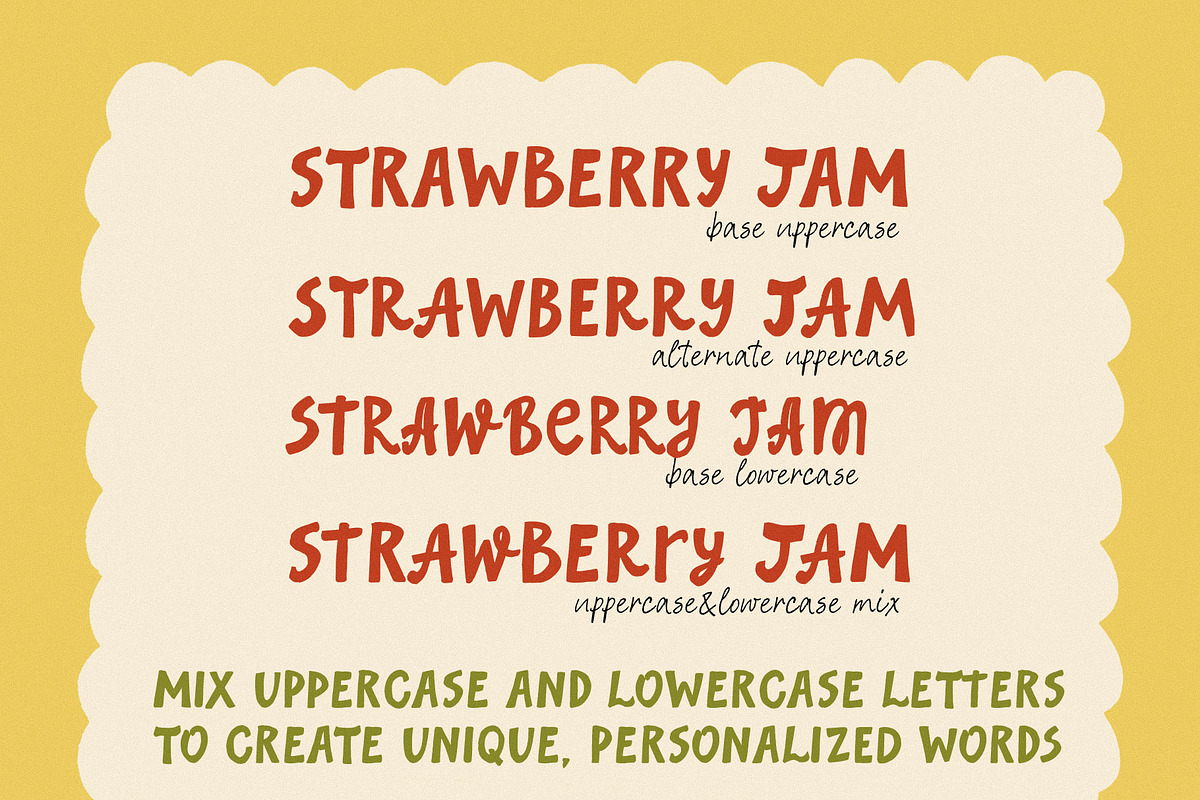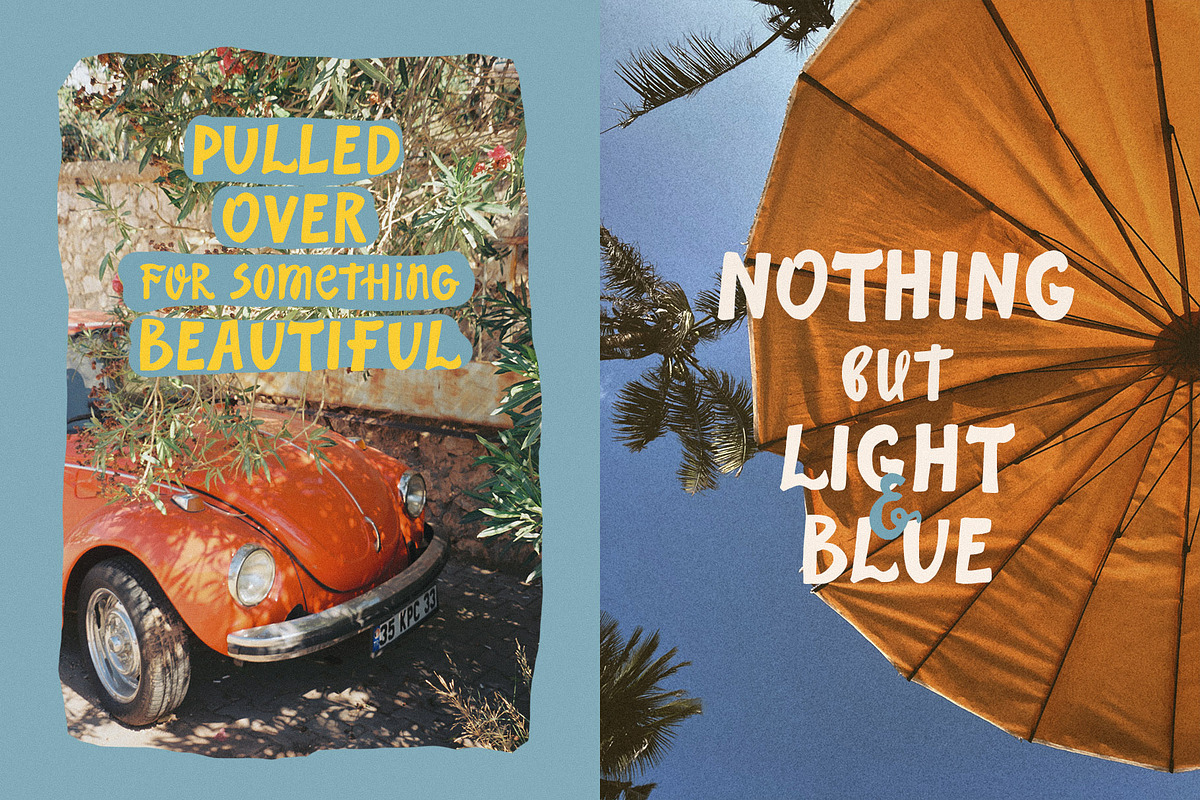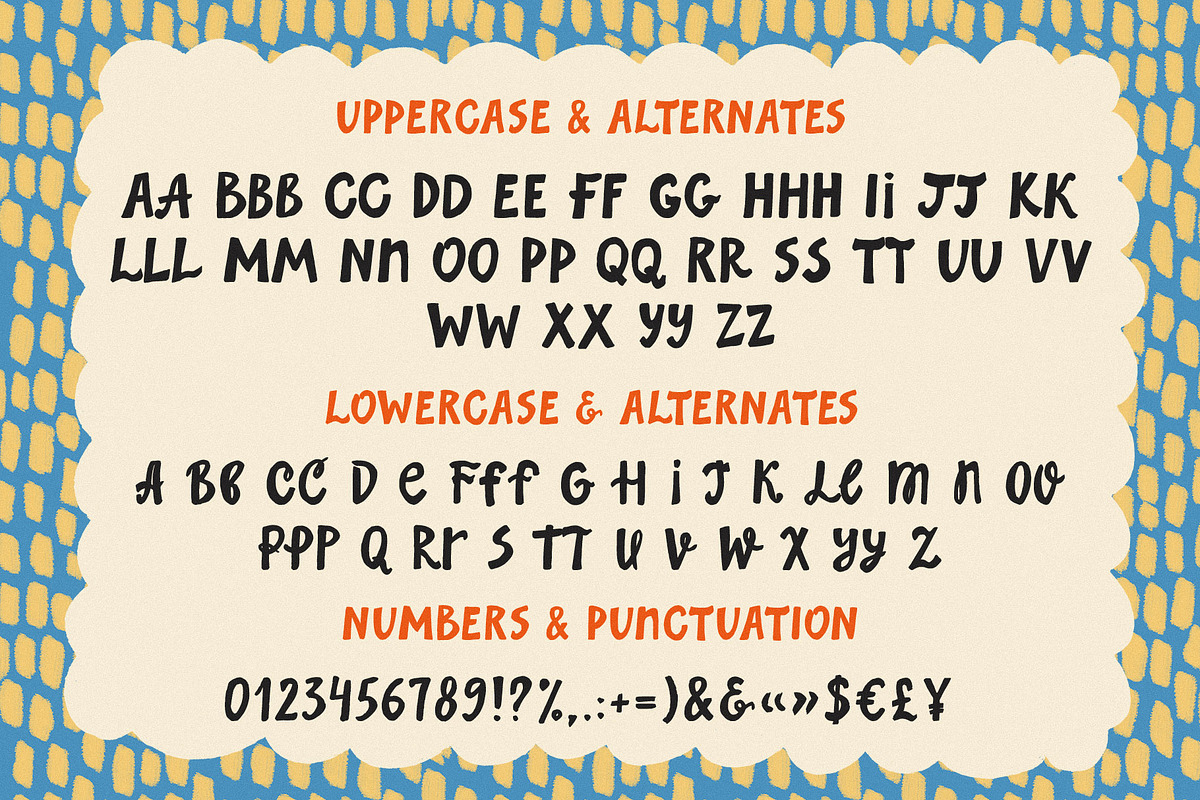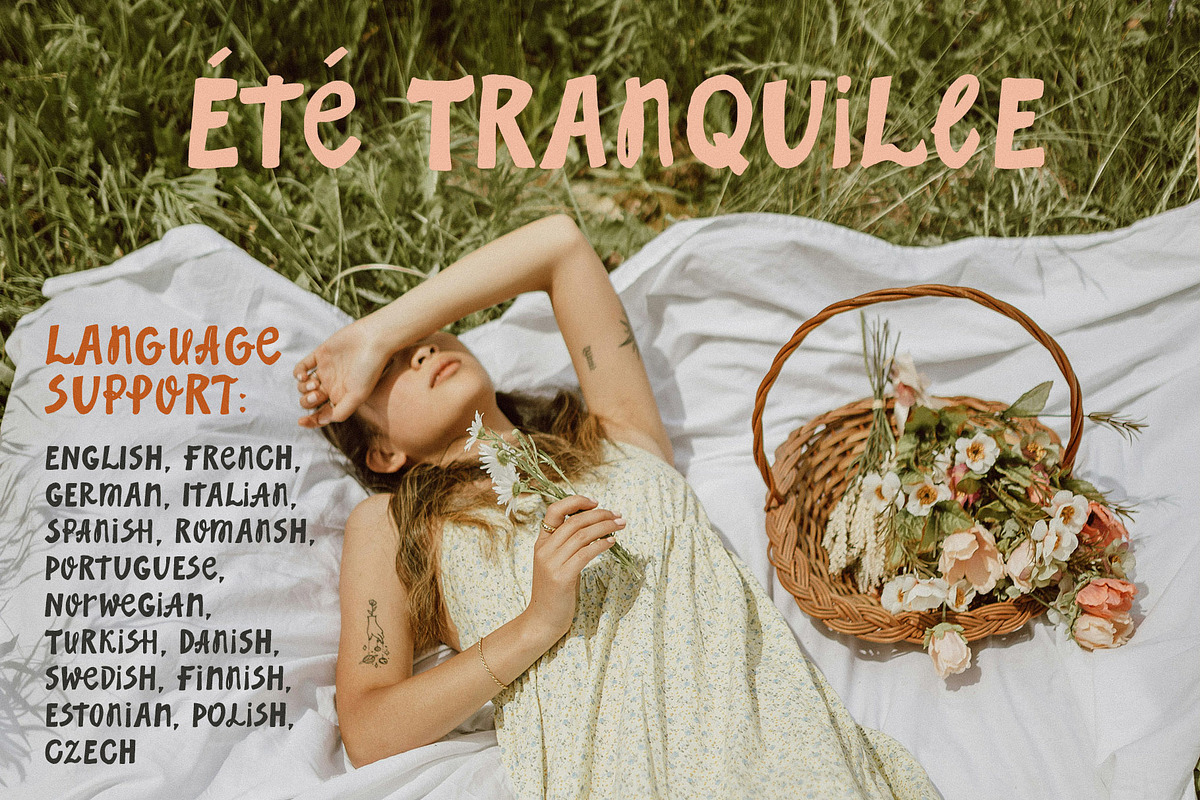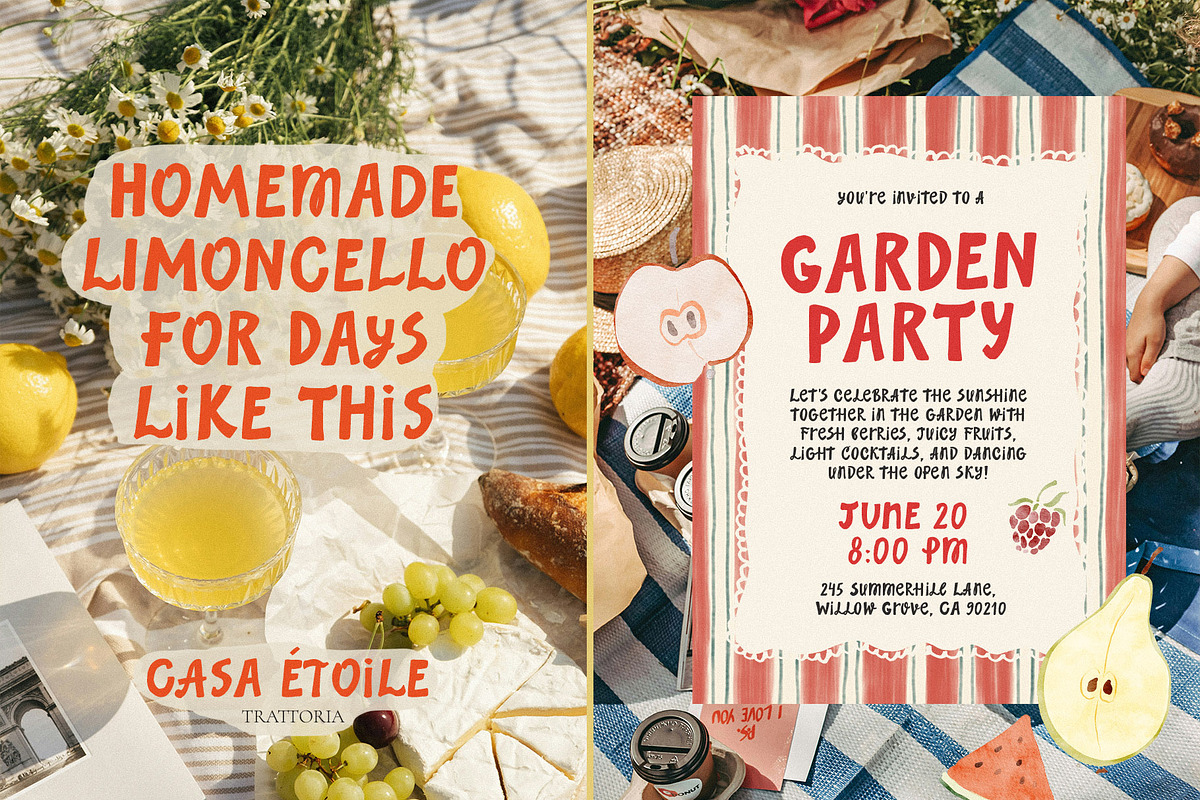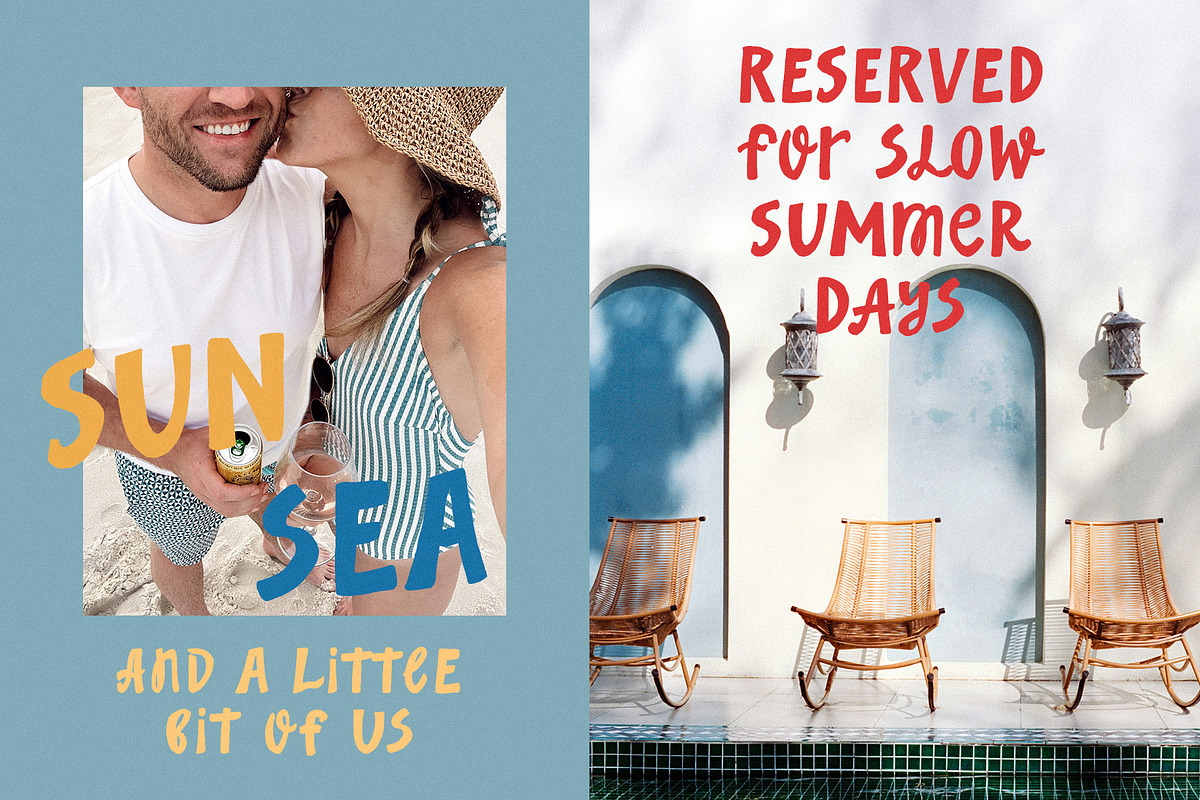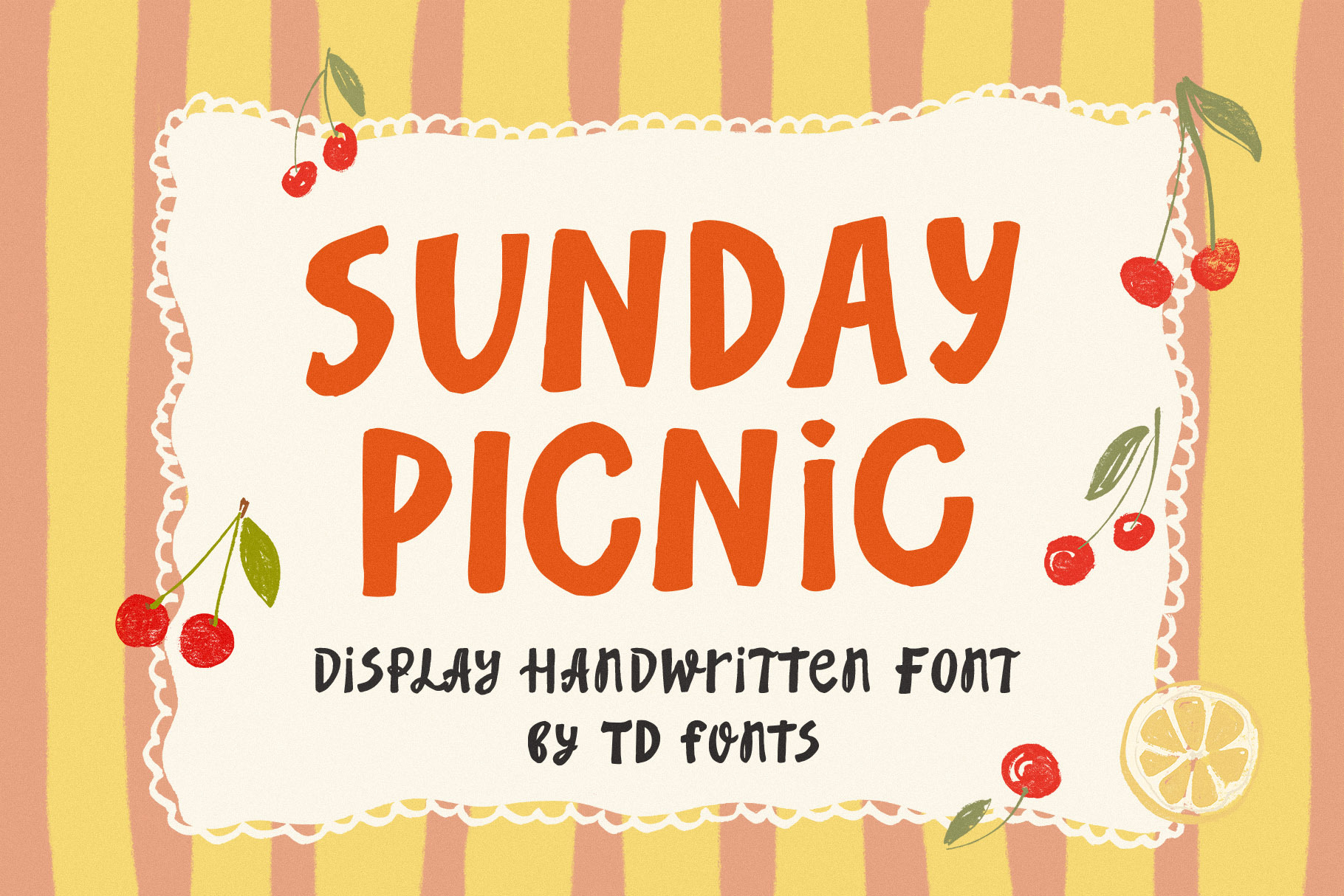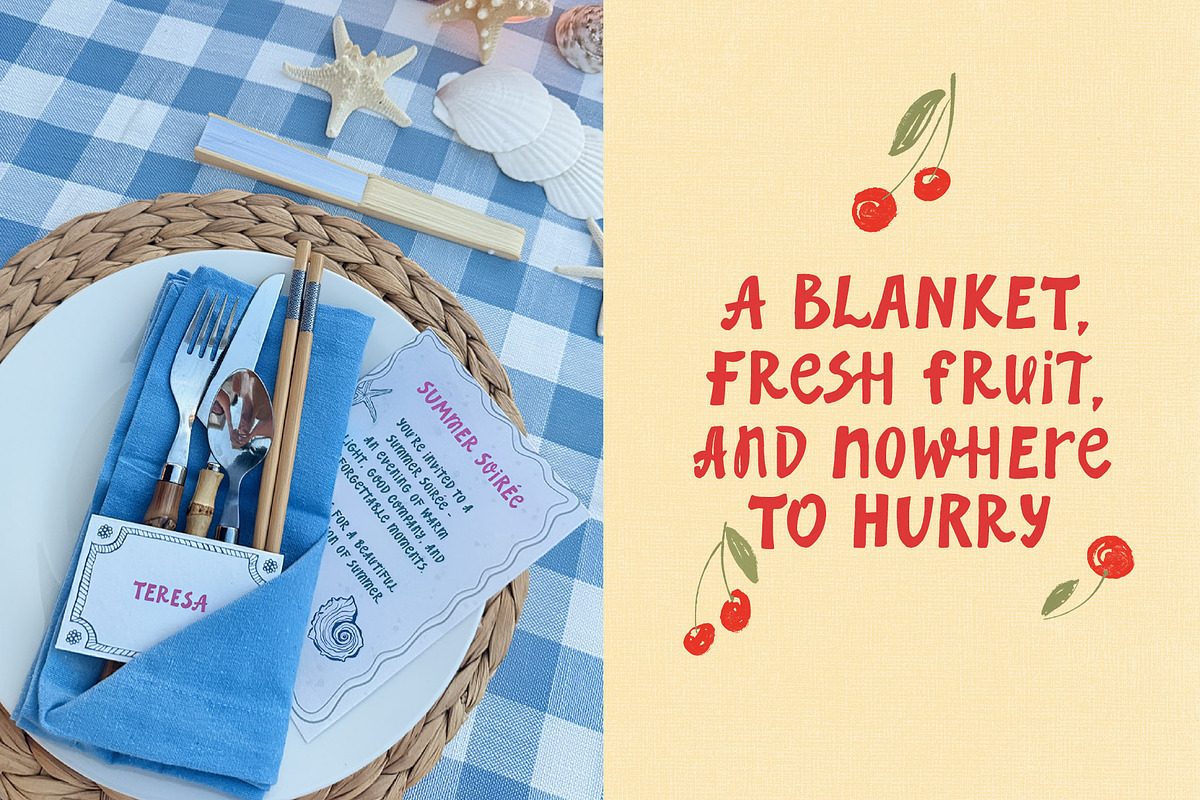
Sunday Picnic Bold Handwritten Font
Sunday Picnic is a bold handwritten hand-drawn display font with an organic, imperfect style and endless lettering possibilities. Chunky, cheerful, and full of personality — it turns any headline into something that feels genuinely made by hand.
Sunday Picnic is a bold, chunky decorative font with energetic hand-drawn letters and an organic, imperfect style. Some characters echo a classic sans serif feel, others lean into a playful cutout look, while a few feature subtle wavy details — together creating a lively mixed-style font full of charm. It is not clean, not geometric, not corporate — it is expressive, playful, and refreshingly human.
The letterforms are bold and low-contrast, with heavy rounded strokes and blunt terminals that give each character a warm, approachable weight. A gentle, irregular slant runs through the letters, shifting slightly from character to character, creating the kind of organic rhythm you only get from something drawn by hand. Every word looks drawn, not typed.
Every character comes with an alternate, and uppercase and lowercase letters work beautifully together, making it easy to mix them and create a huge variety of unique letter combinations. The result is playful, personalized lettering with a relaxed handmade feel. The more you combine, the more unique your lettering becomes — no two words need to look the same.
With its irregular shapes, expressive lines, bold contrast, and slightly slanted structure, Sunday Picnic feels human, cheerful, and full of personality. Its endless variability and handcrafted imperfections make it a truly distinctive display font for bold headlines, creative projects, and eye-catching designs.
Headlines, subheadings & large-format poster titles
Summer event invitations, garden party & picnic stationery
Food & beverage branding, café menus & product packaging
Stickers, merch & print-on-demand designs
YouTube thumbnails, covers & social media graphics
Quirky branding, logos & lifestyle brand identity
Quotes, greeting cards & personalised gifts
Font features:
Bold low-contrast letterforms with rounded, blunt terminals
Mixed style: classic sans, cutout graphic, and wavy-edge characters within one alphabet
Organic irregular slant — each letter carries a slightly different angle for a hand-drawn rhythm
Handwritten feel with natural stroke variation — every word looks drawn, not typed
Every character has a base + alternate version (stylistic & contextual alternates) for maximum variety
Uppercase and lowercase designed to mix freely — create unique combinations with every word
Deliberately imperfect: varied stroke edges, uneven spacing, and handmade irregularities
Display-optimised — best at headline sizes, from 36pt upward
The aesthetic: Sunday Picnic is the font for projects that need to feel warm, spontaneous, and full of life. If you're designing summer branding, a coastal lifestyle identity, a food label, or any creative project where the type needs to carry personality and energy — this font was built for that brief. It is not trying to be refined. It is trying to be real.